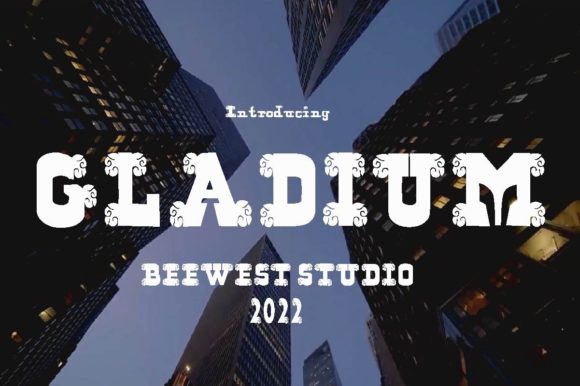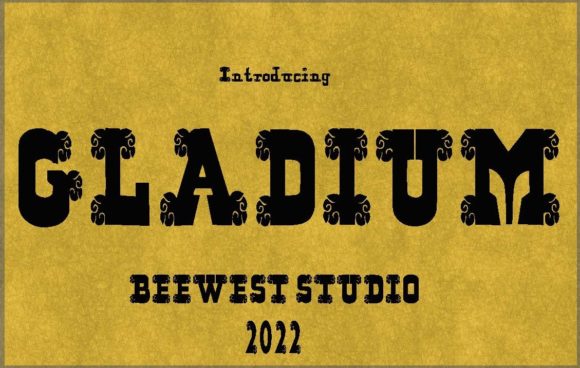
Discover the Power of Gladium Font: A Classic Engraved Typeface
Are you a designer or crafter looking for a font that exudes strength, elegance, and a touch of ancient charm? Look no further than the Gladium font. This stunning typeface is inspired by the grandeur of the Roman Empire and the epic stories of gladiators, making it perfect for a wide range of design projects.
A Font Fit for Gladiators and Cowboys Alike
The Gladium font is a masterclass in classic engraving, with its bold lines, intricate details, and majestic feel. At first glance, it’s easy to see how this font would be perfect for designs that require a sense of power and resilience, such as book covers, posters, and quote designs. However, its versatility extends far beyond these applications.
One of the most surprising aspects of the Gladium font is its suitability for western cowboy-themed designs. The font’s rugged, battle-hardened aesthetic seems to translate seamlessly to the wild west, evoking images of dusty saloons, gunslingers, and open ranges. Whether you’re designing a logo for a cowboy-themed restaurant or creating a poster for a western film festival, the Gladium font is sure to add a touch of authenticity and grit.
Design Applications for Gladium Font
So, where can you use the Gladium font? The possibilities are endless, but here are some ideas to get you started:
- Book Covers: Add a touch of classic elegance to your book covers with the Gladium font. Its bold, eye-catching design is perfect for fiction novels, particularly those in the historical fiction or fantasy genres.
- Posters: Create striking posters for films, events, or exhibitions with the Gladium font. Its commanding presence is sure to grab attention and leave a lasting impression.
- Quote Designs: Use the Gladium font to add a touch of sophistication to your quote designs. Its classic aesthetic pairs perfectly with inspirational or motivational quotes, making it ideal for social media graphics or print materials.
- Apparel: Design stunning apparel with the Gladium font, from t-shirts to hoodies. Its bold, rugged aesthetic is perfect for fashion brands looking to add a touch of edginess to their designs.
What Makes Gladium Font So Special?
So, what sets the Gladium font apart from other typefaces? Here are a few key features that make it so special:
- Unique Lettering: The Gladium font boasts a distinctive lettering style that’s both elegant and rugged. Its intricate details and classic engraving aesthetic make it a standout in any design.
- High Versatility: The Gladium font is incredibly versatile, suitable for a wide range of design applications and themes. Whether you’re designing for print or digital, this font is sure to shine.
- Easy to Read: Despite its ornate details, the Gladium font is surprisingly easy to read, making it perfect for body text or headlines.
In conclusion, the Gladium font is a true gem for designers and crafters. Its classic engraved aesthetic, combined with its versatility and unique lettering, make it a valuable addition to any design toolkit. Whether you’re creating book covers, posters, quote designs, or apparel, this font is sure to add a touch of power, elegance, and sophistication to your work.